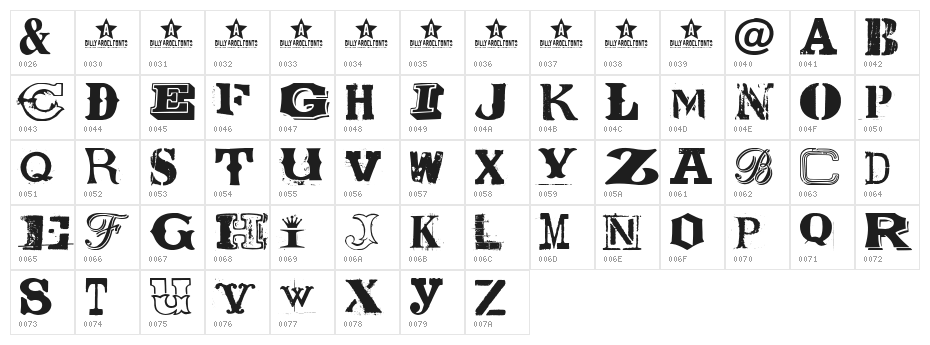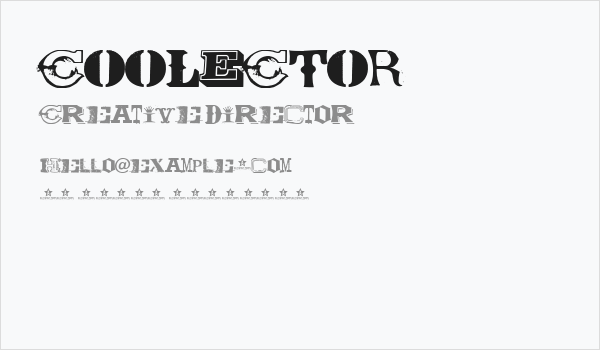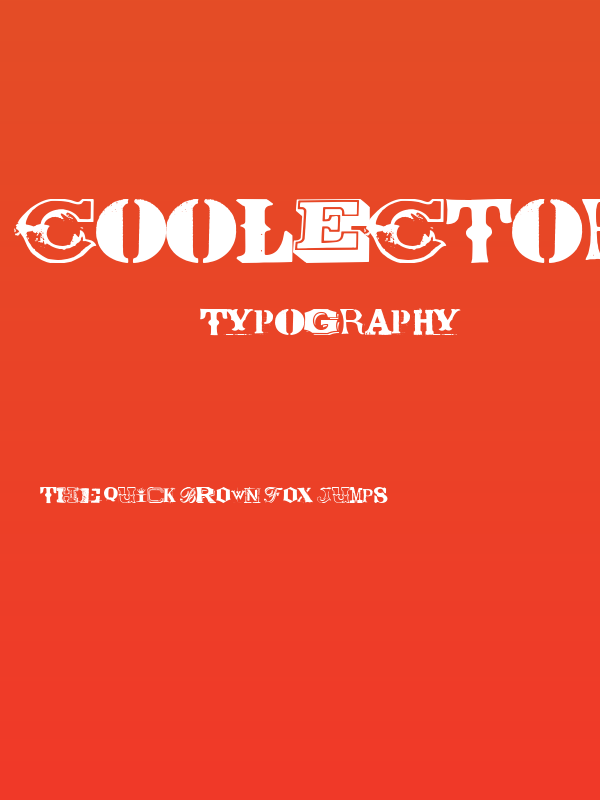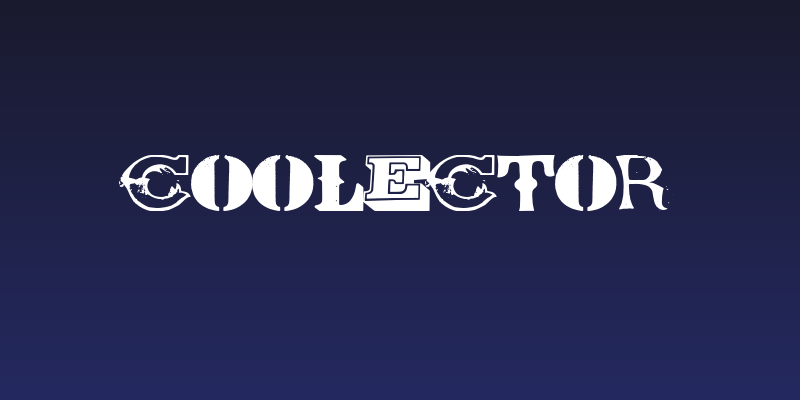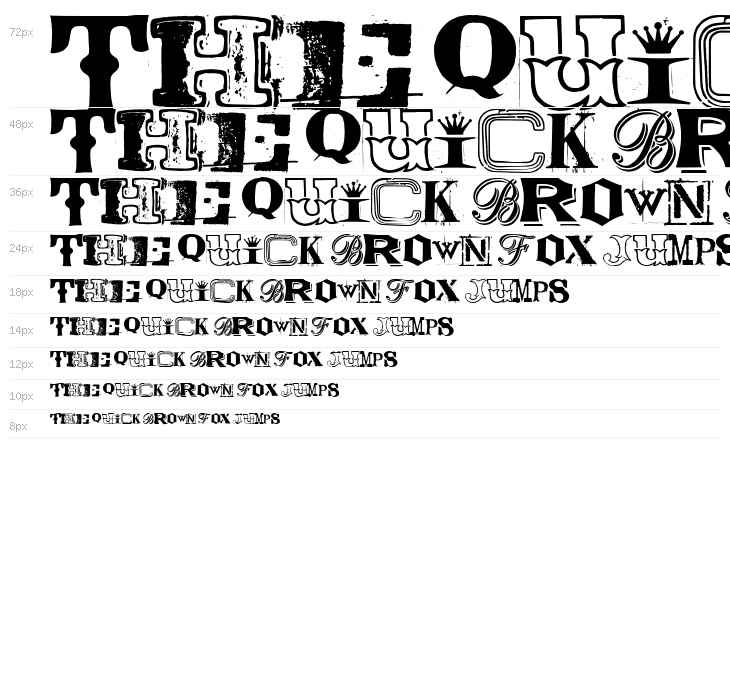
COOLECTOR Font
COOLECTOR Description
This font features a bold and distressed style, reminiscent of vintage or retro designs. Each character is uniquely styled with varying levels of wear and tear, giving it a rugged and textured appearance. The uppercase letters are particularly striking, with some incorporating decorative elements like stars or stripes. The font has a strong presence, making it ideal for attention-grabbing headlines or titles. Its eclectic mix of design elements suggests a playful yet bold aesthetic, suitable for projects that require a distinctive and memorable typeface.
| Overall Style | Vintage |
| Proposed Projects | Ideal for posters, album covers, branding, and any design needing a vintage or retro touch. |